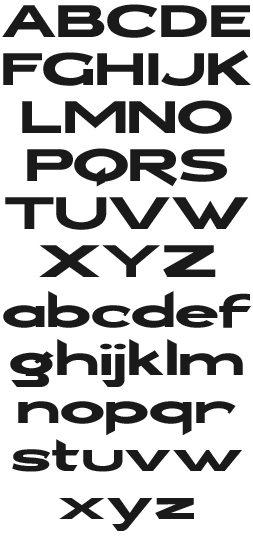
LHF Brough Superior John Studden is always searching through old catalogs and magazines for unusual lettering. This quirky typeface is inspired from an old Brough Superior motorcycle catalog.